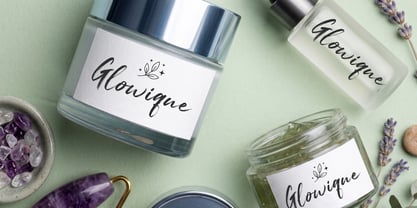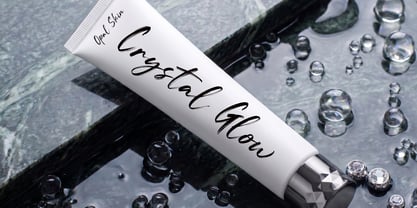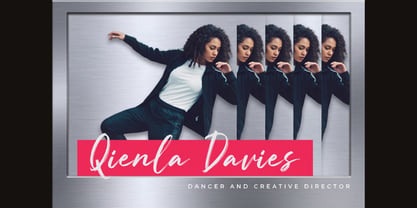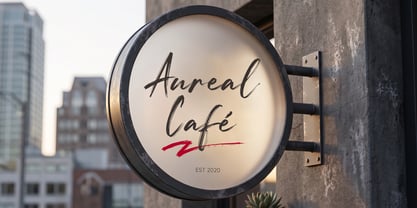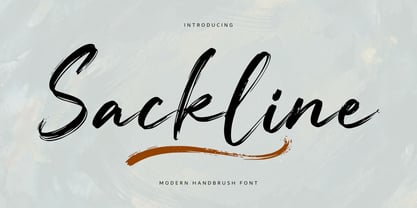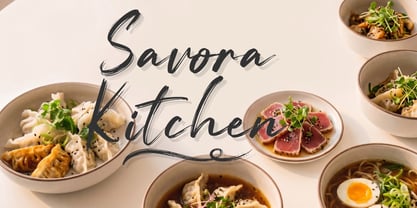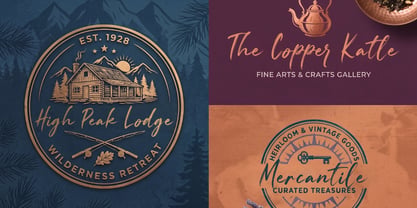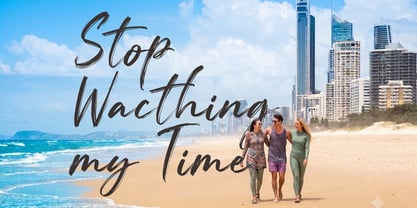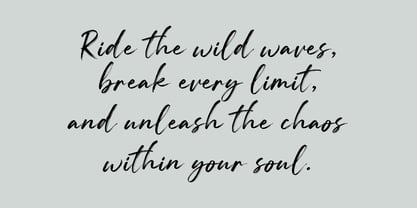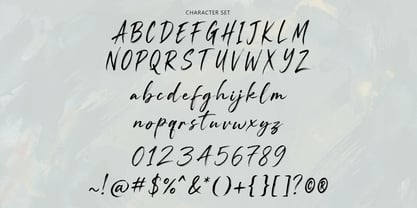
Sackline
by Sealoung
The Sackline Font Family was designed by Saiful Anwar and published by Sealoung. Sackline contains 1 styles. More about this family
Sackline – Modern Handbrush Font
Sackline is a bold and expressive modern handbrush font that captures the raw beauty of natural brush strokes. Designed with a dynamic flow and authentic texture, this font delivers a perfect balance between elegance and energy, making it ideal for eye-catching typography.
Each letter is carefully crafted with rough edges and smooth curves, creating a natural handwritten feel that adds personality and character to your designs. The strong strokes and stylish swashes give Sackline a distinctive look that stands out in any creative project.
Whether you're working on branding, social media content, or product packaging, Sackline brings a modern, artistic touch that feels both fresh and professional.
Features
• Uppercase & lowercase characters
• Numbers & punctuation
• Multilingual support
• Natural brush texture
• Smooth and dynamic strokes
• Stylish swash accents
• Ligatures
Sackline is more than just a font it’s a statement of style, confidence, and creativity. Add a handcrafted touch to your work and make your designs truly stand out.
Designers: Saiful Anwar
Foundry: Sealoung